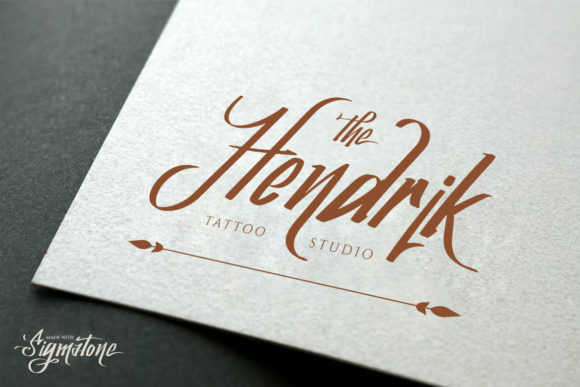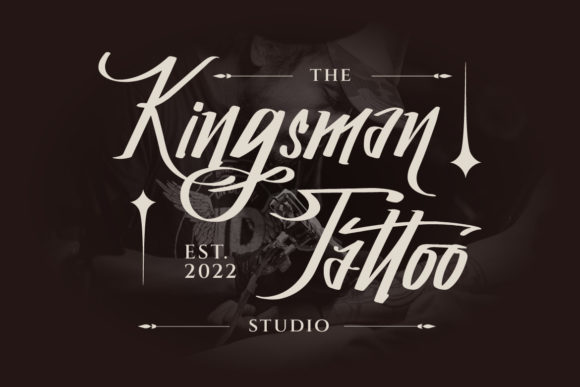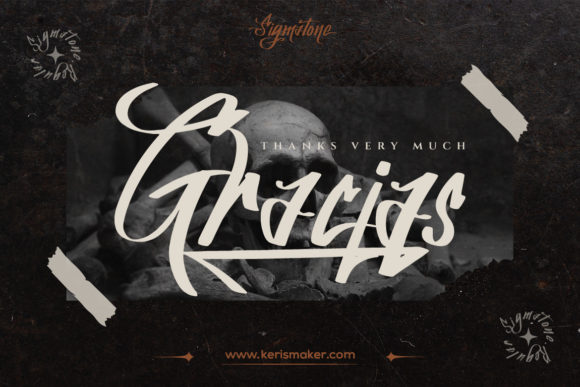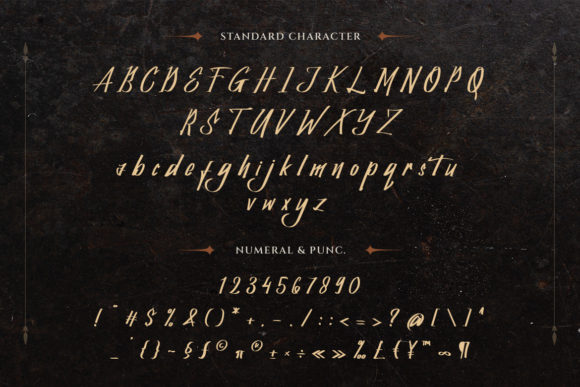
About Sigmatone Font
Sigmatone draws inspiration from old-school graffiti tagging and street art, showcasing a raw and urban aesthetic. Crafted in the Procreate app, the font is meticulously vectorized, resulting in a typeface that is ideal for a variety of applications. Sigmatone is well-suited for logo design, social media graphics, movie titles, book titles, short and long text, and serves excellently as a secondary font, particularly when paired with sans-serif or serif typefaces.
The essence of old-school graffiti tagging and street art is ingrained in Sigmatone, offering a bold and edgy visual style. This font brings a sense of urban authenticity to your designs, making it an excellent choice for projects that seek to capture the energy and grit of street culture.
Sigmatone’s versatility is evident in its adaptability to different design contexts. Whether you are crafting a logo that demands a rebellious flair, designing graphics for social media with an urban edge, or creating titles for movies or books that resonate with street art vibes, this font serves as a dynamic and impactful choice.
Additionally, Sigmatone functions well for both short and long text, making it suitable for various typographic applications. Its potential as a secondary font, especially when paired with sans-serif or serif typefaces, allows you to achieve a well-balanced and visually appealing composition in your designs.
In conclusion, Sigmatone is not just a font; it’s a design tool that brings the essence of old-school graffiti and street art to your projects. Whether used for bold logos or as secondary text in combination with other fonts, Sigmatone adds an urban and rebellious touch, contributing to designs that exude energy and authenticity.